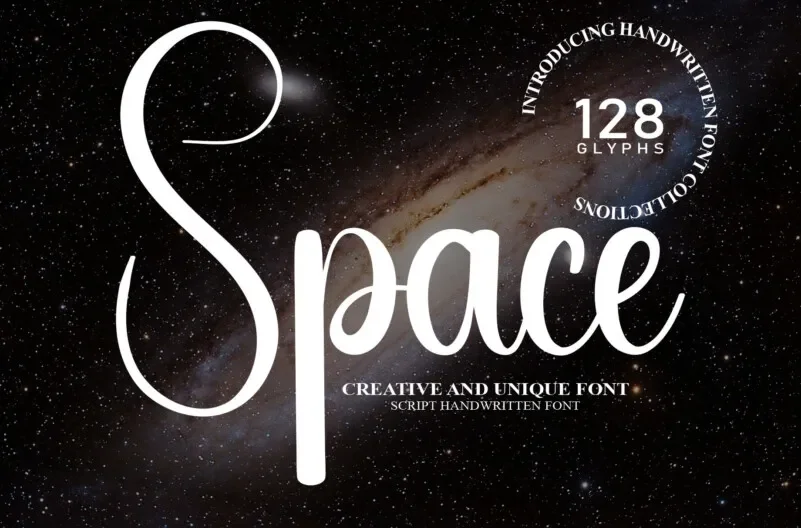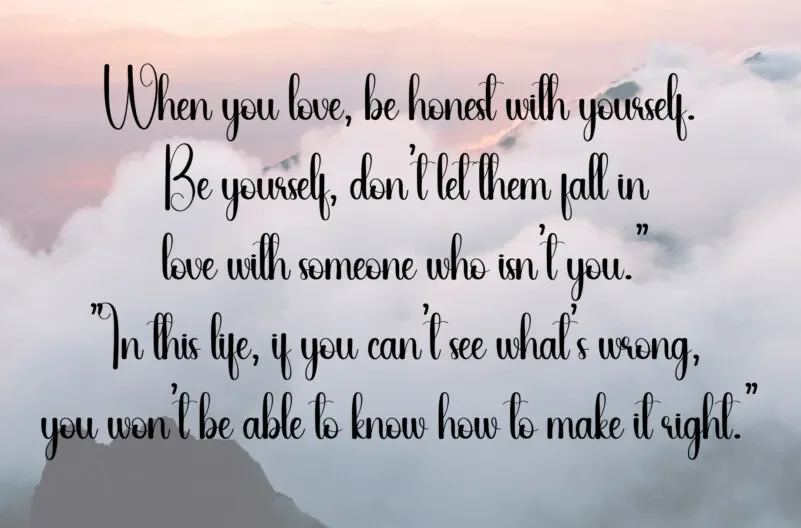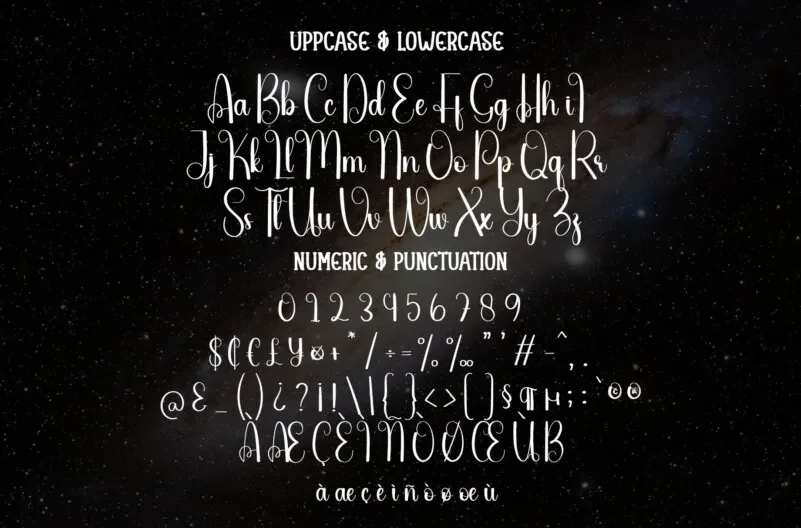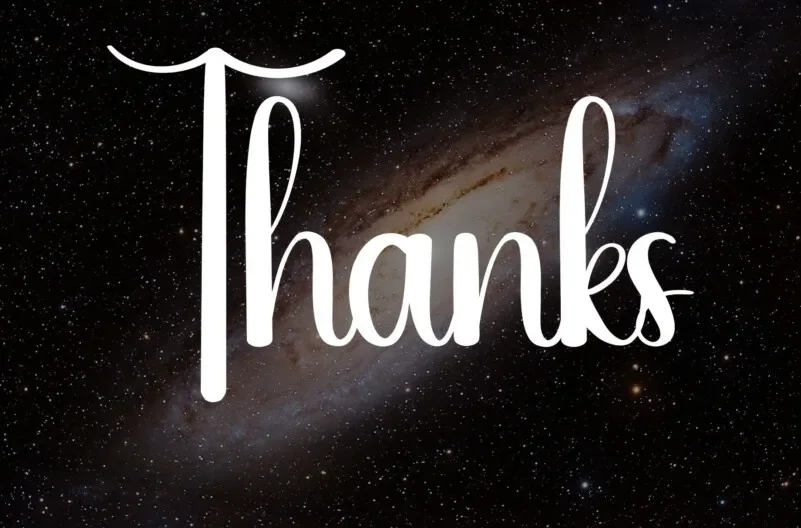
Space fonts bring cosmic vibes to your designs. With sharp lines, futuristic cuts, or retro sci fi flair, they capture the feel of outer space. Use them in posters, titles, or game graphics to give your project an interstellar boost, no spaceship required.
Designer: Various (e.g., Justin Callaghan, Colophon Foundry, Iconian, Astigmatic One Eye Typographic Institute)
Released: First appeared in the late 1990s; gained popularity in the 2010s via free font platforms ([turn0search1], [turn0search12])
Style: Geometric sci-fi, futuristic sans-serif, retro space-age display
Includes sleek geometric and display styles with sci fi edge
Vary from thin sci-fi scripts (Astronova, Polaris) to bold modular types (Space Age, Audiowide)
Often include extended glyph sets for Latin, sometimes Greek/Cyrillic
Designed for headlines, posters, website hero text, and gaming UI
Space fonts work best at large sizes. Use them for posters, tech blogs, game headers, or video overlays. Pair them with a simple sans-serif like Roboto or Lato to keep things clean while letting the spacey font shine.